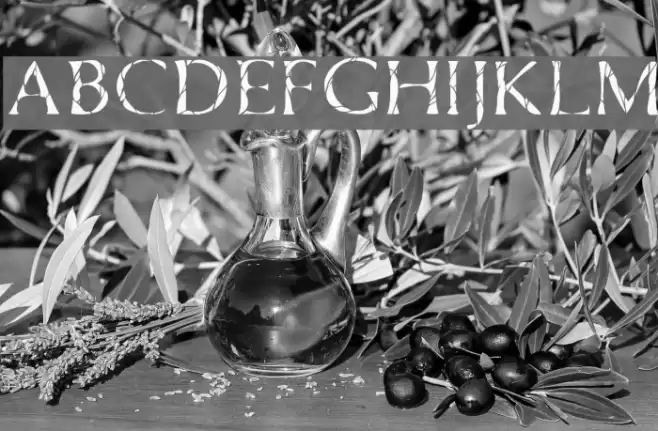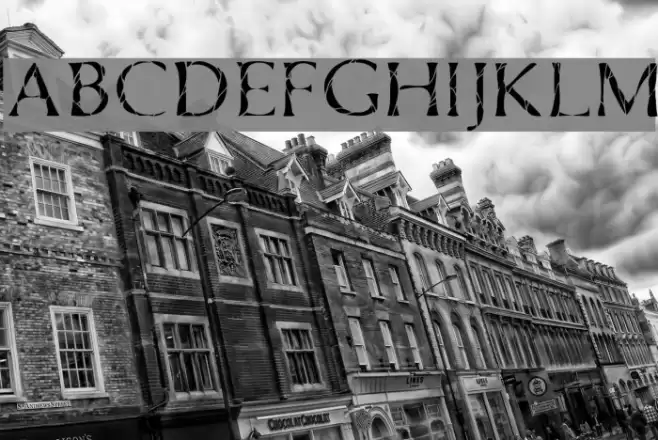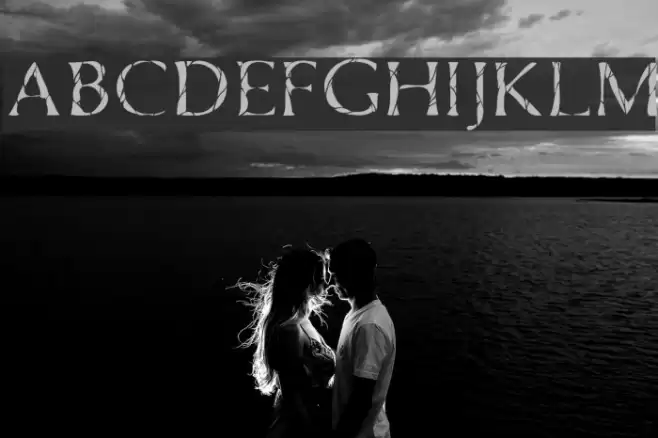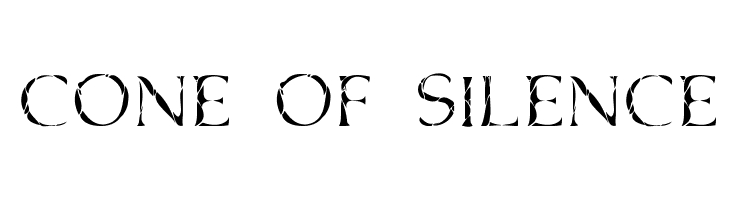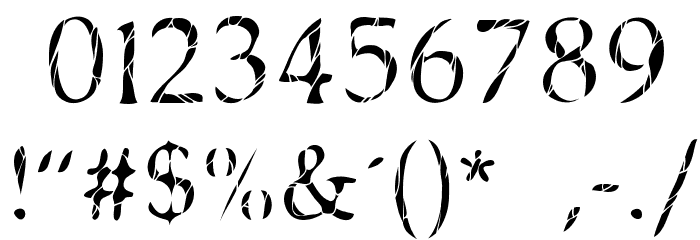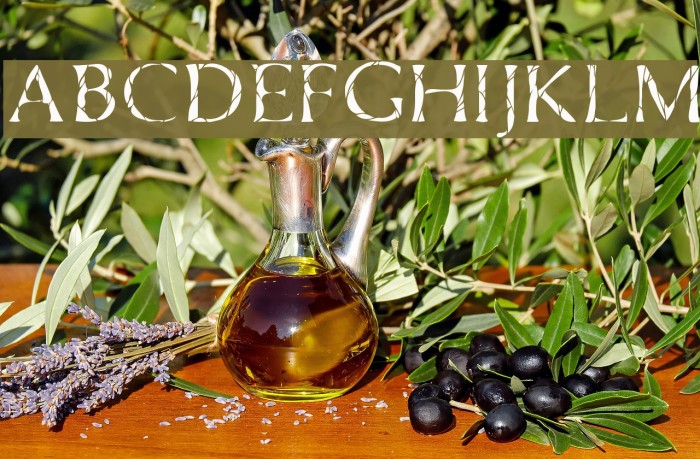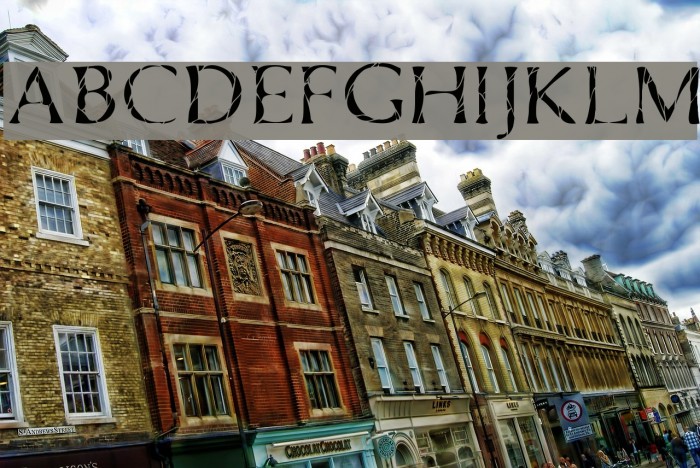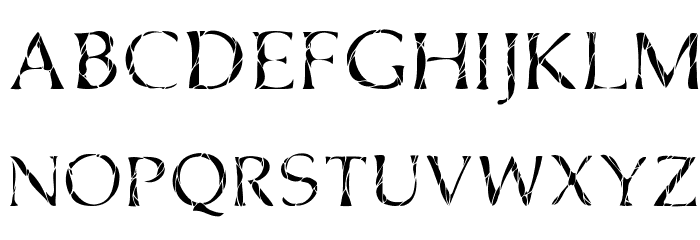
Cone Of Silence Font
Cone Of Silence Description
This font features a unique, distressed design with a bold, artistic flair. Each character is crafted with a pattern that resembles torn paper or a scratched surface, giving it a dynamic and textured appearance. The uppercase and lowercase letters maintain a consistent style, with sharp serifs and varying line thickness that add to its visual interest. The numbers and special characters follow the same design principles, ensuring a cohesive look across all glyphs. This font's distinctive style makes it stand out, perfect for projects that require a bold statement.
A bold, distressed font with a unique, textured design from Uncategorized fonts.